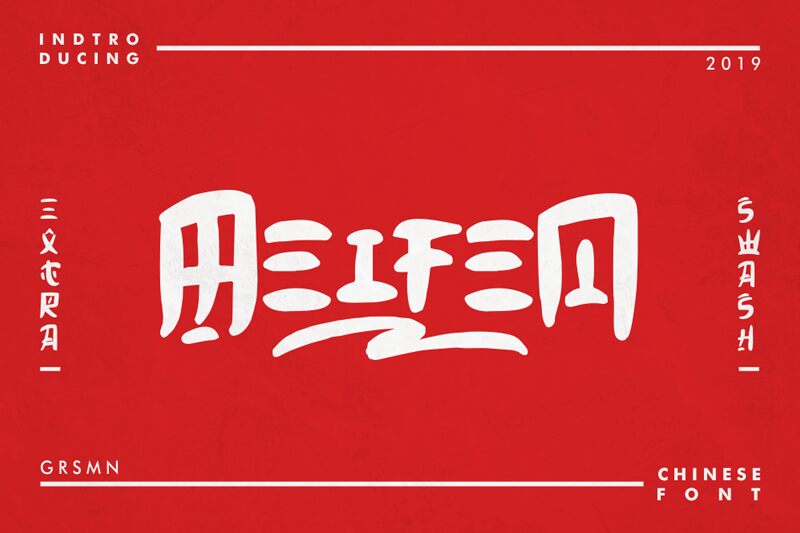
Meifen is a bold, captivating Chinese brush-style font designed by Risman Ginarwan. Its dynamic, expressive strokes convey a sense of movement and energy, making it a standout choice for attention-grabbing headlines, impactful branding, and artistic typography.
The font's bold presence commands attention, while its organic, handwritten aesthetic adds a touch of authenticity and personality to any design. Meifen's versatility lends itself well to a variety of applications, from editorial design and packaging to advertising and web interfaces, ensuring a striking visual impact across diverse mediums.